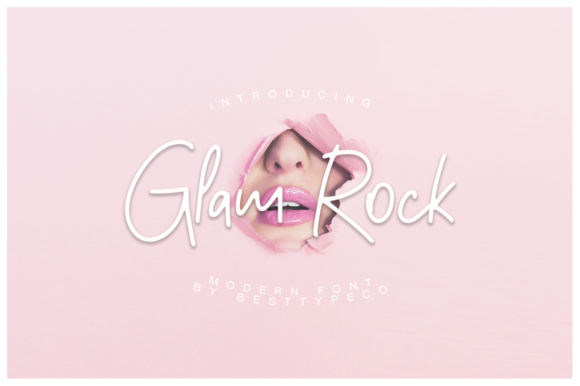
Prepare to be mesmerized by Glam Rock, a captivating script font that exudes elegance and charm. Its graceful curves and effortless flow will add a touch of sophistication to your creative endeavors, leaving a lasting impression on all who behold it.
Immerse yourself in the beauty of Glam Rock, a font that embodies the spirit of timeless allure. Its delicate strokes and enchanting loops dance across the page, creating a symphony of visual harmony. With Glam Rock, your words will transform into works of art, captivating and inspiring your audience.
Experience the versatility of Glam Rock, a font that adapts seamlessly to a myriad of design concepts. Whether you're crafting elegant invitations, enchanting social media posts, or captivating logos, Glam Rock will elevate your creations to new heights. Its endless possibilities will ignite your imagination and empower you to express your unique style.
Indulge in the allure of Glam Rock, a font that awakens the senses and stirs the emotions. Its enchanting presence will add a touch of magic to your designs, captivating hearts and leaving a lasting legacy. Experience the transformative power of Glam Rock today and unlock the boundless possibilities it holds.
Created by the visionary minds at BennyDesigns, Glam Rock is a masterpiece of digital artistry. Its meticulous craftsmanship and unwavering attention to detail shine through in every letterform, ensuring that your creative visions are brought to life with unparalleled beauty and precision.